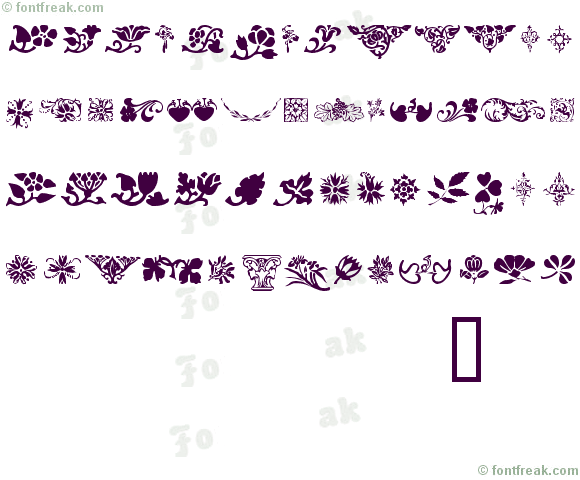
Printers Ornaments One
Printers Ornaments by Michelle Dixon is a captivating decorative font that beautifully reflects the charm of vintage printing. Released as freeware, this versatile typeface is adorned with an array of whimsical ornaments and graphic elements that evoke the artistry of traditional printers' tools. With its unique blend of elegance and playfulness, this font is perfect for adding a touch of nostalgia to any project. The visual characteristics of Printers Ornaments include a varied stroke weight, giving it a dynamic appearance, and a well-balanced contrast that enhances readability while maintaining its decorative flair. The spacing is thoughtfully designed to ensure each ornament stands out, making it ideal for creative applications.
This font excels in a variety of use cases. It is particularly well-suited for wedding invitations, where its intricate designs can elevate the overall aesthetic and bring a sense of romance. Additionally, Printers Ornaments can be a striking choice for movie posters, adding a layer of visual interest that captures the audience's attention. Restaurant menus can also benefit from the font's decorative elements, providing a unique and inviting look that reflects the personality of the establishment. Graphic designers and content creators will find this typeface invaluable for crafting engaging digital content, while small business owners can utilize it for branding materials that stand out in a crowded marketplace.
What sets Printers Ornaments apart is its distinct vintage appeal combined with modern usability. The careful craftsmanship that Michelle Dixon has infused into this font allows it to resonate with both traditional and contemporary audiences. By offering a Printers Ornaments font free download, designers can easily incorporate these exquisite elements into their work without any financial constraints, making it an essential addition to any creative toolkit.